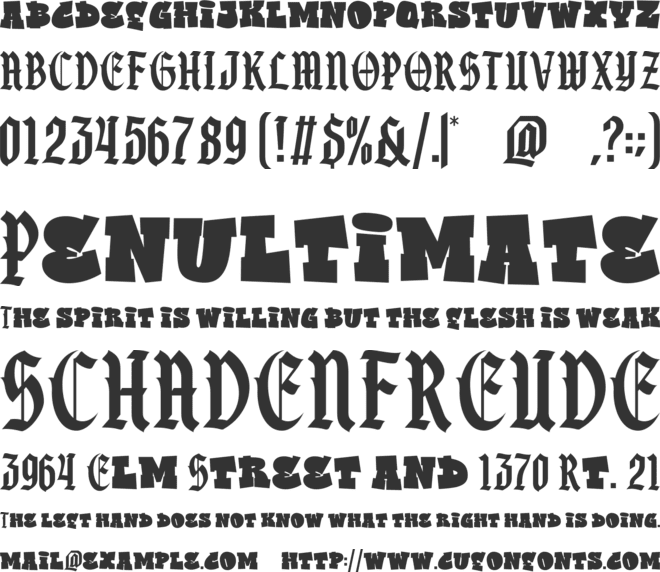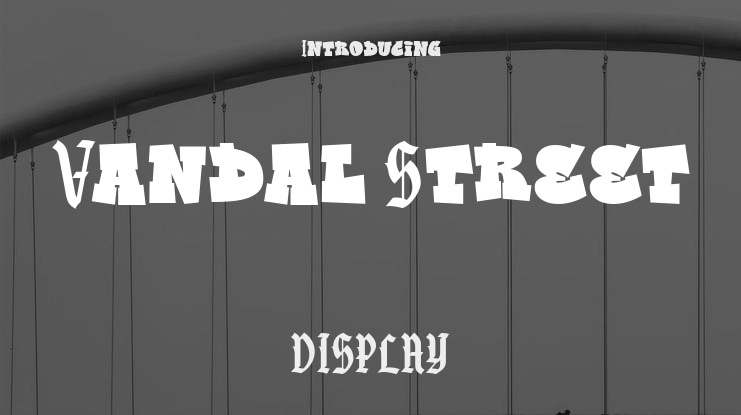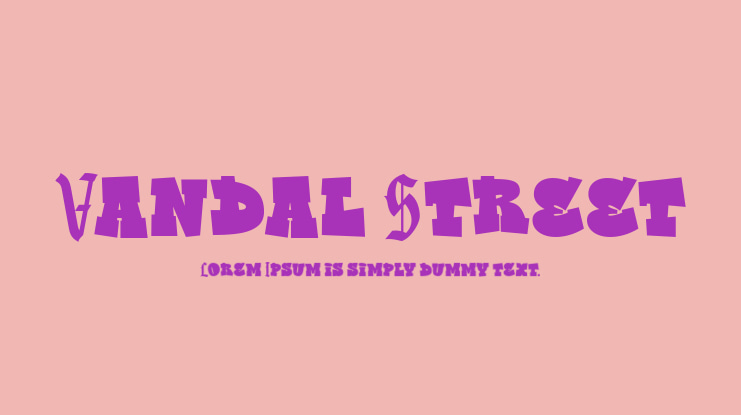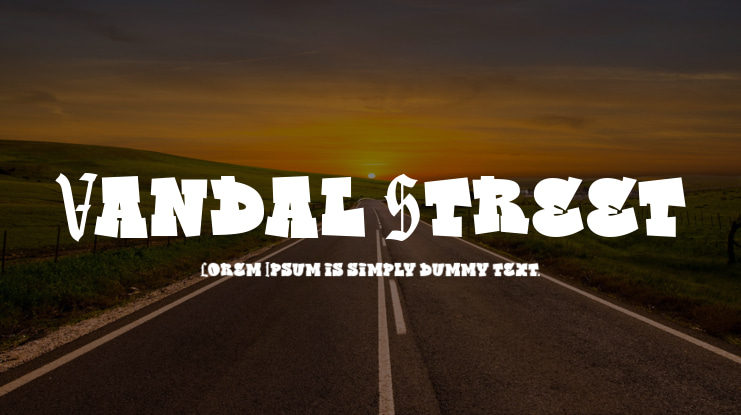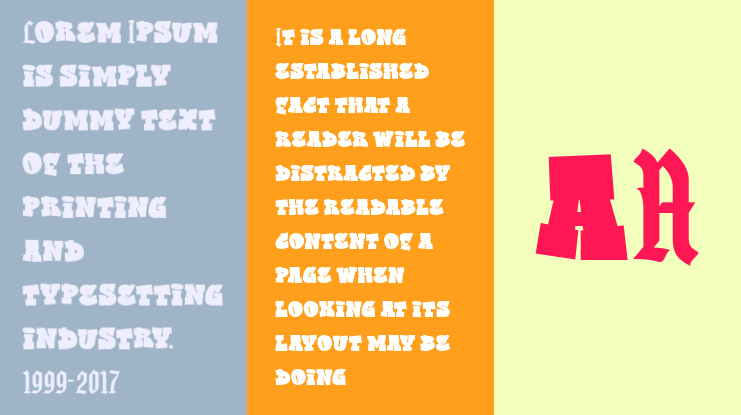
Vandal Street Font
The Vandal Street Graffiti Font is a unique typeface that combines the energetic style of graffiti with the intricate look of blackletter. It draws inspiration from the urban culture of street art, creating a font that embodies a rebellious spirit and urban authenticity.